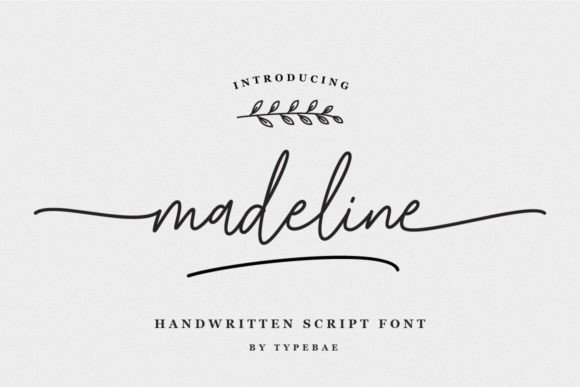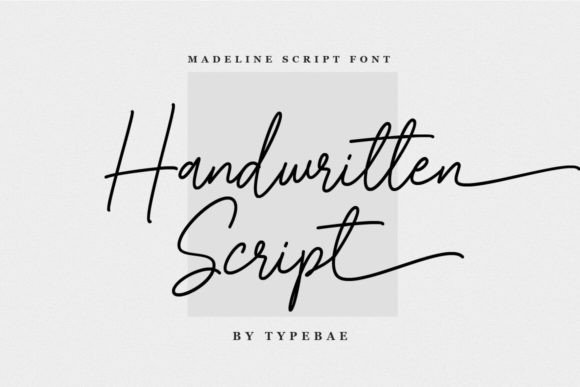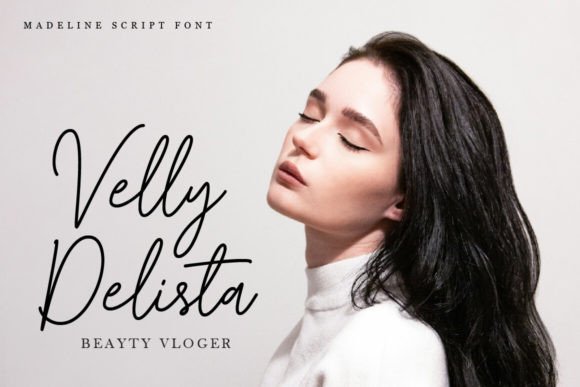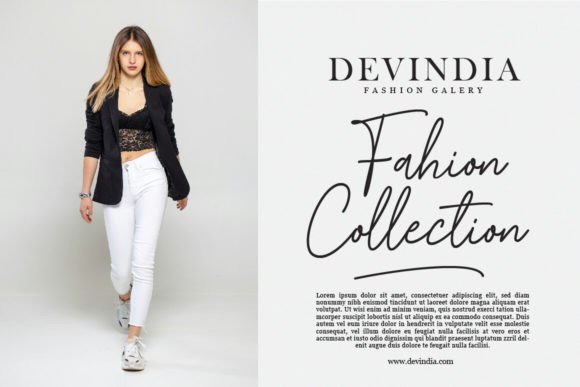
Madeline Font: Elegant Handwritten Script for Wedding & Signature Designs
About the Madeline Font
From logos to headlines, the Madeline Font is the perfect choice for making a lasting impression. Madeline is an organic handwritten font that is suitable for branding, signature, wedding invitation, promotion, product packaging, and other needs. This font is modern, simple, but still authentic. You will get full set of lowercase and uppercase letters, numerals and punctuation, multilingual symbols, lowercase beginning and ending swashes, ligatures and extra swashes.
Madeline’s organic feel makes it ideal for projects requiring a touch of handmade authenticity, such as logos, short headlines, and packaging design where a personal touch is desired. It works particularly well for brands aiming for a modern yet approachable aesthetic, perhaps in the lifestyle, beauty, or food industries. However, its handwritten nature makes it less suitable for large blocks of text or UI elements where readability is paramount.
Consider pairing Madeline with a clean sans-serif like Montserrat for a balanced contrast; the geometric precision of Montserrat grounds Madeline’s fluidity. Alternatively, a delicate serif like Lato could create a more classic and elegant feel, softening Madeline’s informal character. Avoid pairing it with overly decorative or highly stylized fonts that would compete visually.
Madeline possesses a friendly and approachable personality, conveying warmth and authenticity without sacrificing a contemporary edge. Its slightly informal style lends itself to projects requiring a personal and inviting tone.